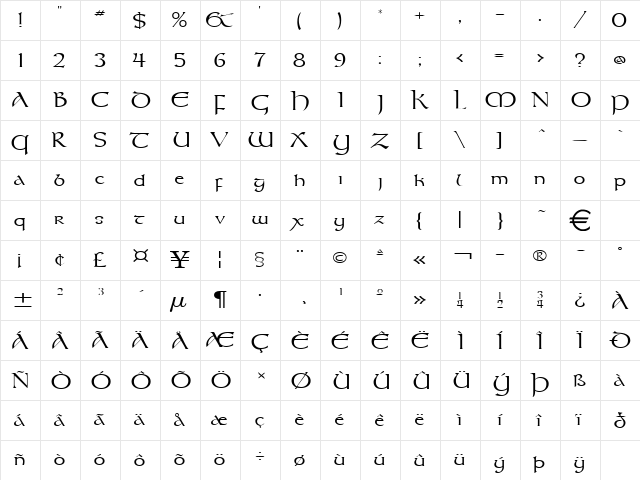
KeltWide Normal Font Preview
KeltWide Normal
KeltWide Normal Font Details
Design Context for KeltWide Typeface
KeltWide takes a measured approach to typography — its balanced proportions and neutral character make it a reliable workhorse for both digital and print work.